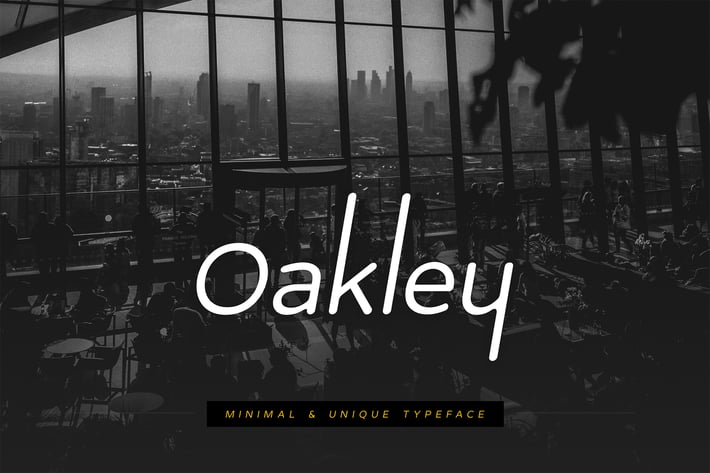
Oakley Minimal Typeface
Oakley minimal typeface
Oakley is a versatile and minimal typeface.
This font can be used for professional logos, web design, slogans, magazine covers, wedding cards, invitations, and advertising. Type projects and headlines flourish from its highly contrasting contours.
Oakley offers countless style options. For any creative project, it is the optimal choice.